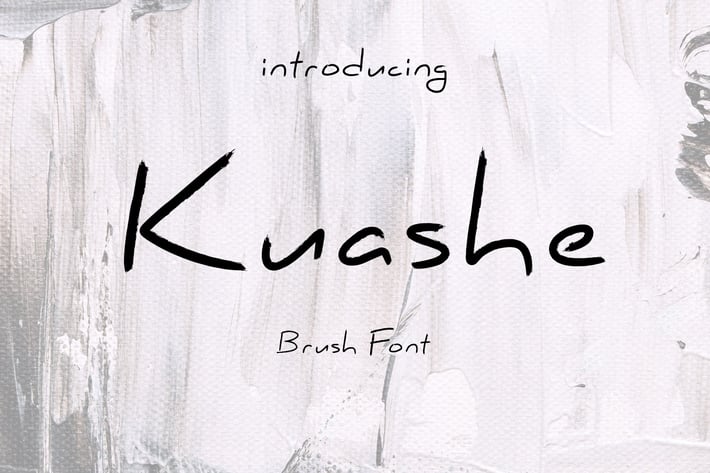
Kuashe Font
Introducing Kuashe Font
Hand written brush font, look natural and unique.
best for display font, poster, logo and more..
Hand written brush font, look natural and unique.
best for display font, poster, logo and more..